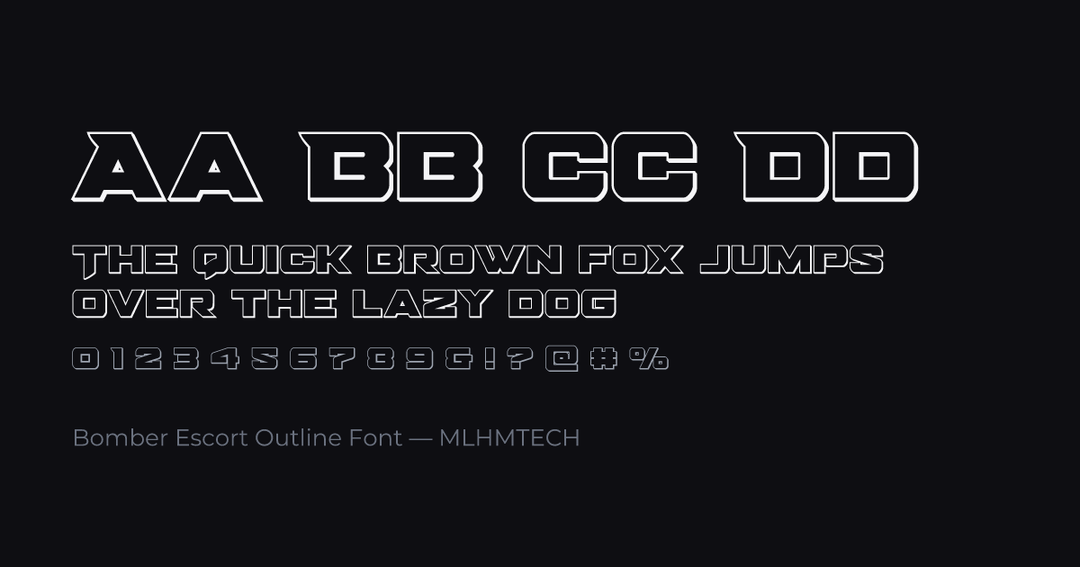
Bomber Escort Outline Font
Bomber Escort Outline is a bold, military-inspired display font with an outlined style, ideal for impactful headlines and vintage designs.
Bomber Escort Outline is a striking display font that features a bold, stencil-like outline design. Its strong, military-inspired character makes it perfect for posters, logos, and any project that needs a commanding presence.
This font is delivered as a TTF file, ensuring compatibility with most design software. Use it to add a rugged, vintage feel to your titles, badges, or merchandise. The outline style works well on both light and dark backgrounds, offering versatility for various creative projects.
Whether you're designing a movie poster, a sports team logo, or a retro-themed invitation, Bomber Escort Outline will give your text a distinctive edge that stands out.